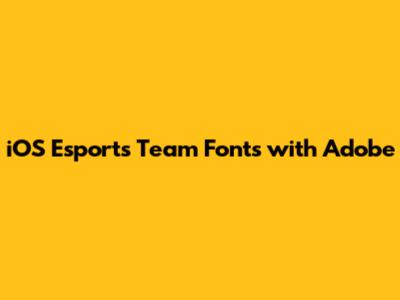
Sans-Serif Fonts: These are your go-to for modern, clean, and highly readable text, especially on screens. Think fonts like Helvetica, Roboto, or Open Sans. For an iOS esports team, a strong, geometric sans-serif can convey precision and technology. A more rounded sans-serif might feel friendly and approachable, great for community-focused teams. These fonts scale exceptionally well, ensuring your team name looks sharp whether it's on a notification or a massive esports banner. They're versatile, working brilliantly for logos, UI elements, and even body text on your website.
Slab Serif Fonts: If you want something with a bit more weight and a classic, sturdy feel, slab serifs can be a winner. They often have a strong, block-like appearance. Imagine a font that feels like it's carved from stone – powerful and enduring. For an esports team, this could translate to a sense of resilience and strength. However, be mindful of the thickness; very chunky slab serifs might not render perfectly on smaller iOS screens, so choose wisely or opt for lighter weights.
Display/Script Fonts (Use with Caution!): These are your statement fonts, designed for impact. Think dramatic, stylized, or handwritten looks. While tempting for logos, these are generally not ideal for primary team branding on iOS due to readability issues, especially at smaller sizes or in motion. If you use them, reserve them for very specific, large-format applications where legibility isn't compromised, or as accent elements. For instance, a stylized script might work for a unique team signature graphic, but never for team names in game menus.
Geometric Fonts: These are often a sub-category of sans-serifs but deserve a mention. They are based on simple geometric shapes like circles and squares. They exude modernity, efficiency, and a tech-forward feel, which is perfect for many esports teams. Think clean lines and balanced proportions. They tend to be very legible and look fantastic in digital applications.
- Vast Selection: You'll find everything from classic sans-serifs perfect for legibility on iOS devices to bold display fonts that make a statement. Need something futuristic? Or maybe something with a gritty, urban feel? Adobe Fonts has you covered.
- High Quality: These are professional-grade fonts designed for clarity and aesthetic appeal. You're not dealing with dodgy free fonts that might have rendering issues or missing characters.
- Logo Creation: Use Illustrator to combine your chosen font with graphical elements. Experiment with letter spacing (kerning) to make your team name look perfectly polished. Adjusting the baseline, tracking, and leading can dramatically alter the feel of your text.
- Customization: Don't be afraid to modify existing fonts slightly to make them unique. You can round corners, add sharp edges, extend strokes, or create custom ligatures (connected letters) in Illustrator. However, always ensure you respect font licensing agreements regarding modification. Some fonts are more permissive than others.
- Text Effects: In Photoshop, you can apply sophisticated layer styles – gradients, bevels, glows, shadows – to make your team's text pop. Think about creating metallic effects, neon glows, or distressed textures that match your team's aesthetic.
- Layout and Mockups: Use both programs to create mockups of your branding. See how your font looks on a jersey, a website header, a social media post, or an in-game UI. This practical application is key to ensuring your iOS esports team fonts work in the real world.
- Font Weight: Use bolder weights for main titles and logos, but opt for regular or medium weights for any body text or smaller labels. Avoid extremely thin 'hairline' fonts, as they can disappear on lower-resolution screens or in bright sunlight.
- X-Height: Fonts with a larger 'x-height' (the height of lowercase letters like 'x') tend to be more readable at smaller sizes. Look for fonts that feel balanced and open.
- Character Spacing (Tracking): Sometimes, even a readable font can become cramped. Pay attention to the overall spacing of your text. You might need to slightly increase the tracking (the space between all characters in a word or line) to improve legibility, especially in tight spaces.
- Multiple Devices: If possible, test your designs on a range of iOS devices with different screen sizes and resolutions. Use emulators in your design software if physical devices aren't available, but always try to get eyes on real hardware.
- Portrait vs. Landscape: How does your team name look when someone is playing in portrait mode versus landscape mode? Does the font remain clear? Does the layout break?